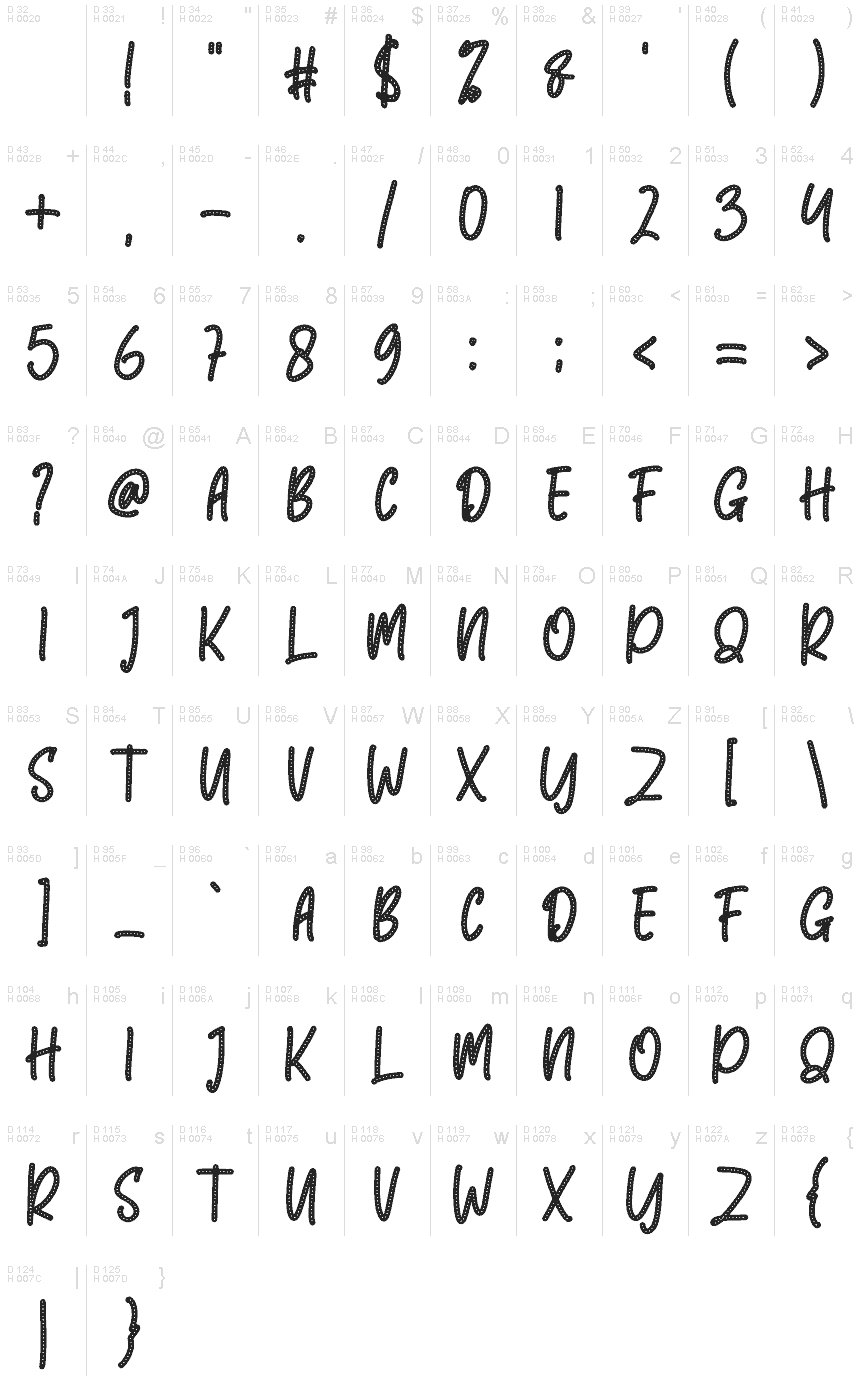
BORSE
Borse font presented by Skiiller Studio is a whimsical decorative display font with a lively appearance. The condensed letters each hold an intricate dotted pattern that makes them more special and eye-catching, with some of them also featuring fun dashes and rounded accents for an unusual look.
This retro-inspired font is suitable for creative designs that are as extraordinary as the typeface itself. Create fun page decorations with Borse, backdrop designs for unusual typography art, posters, branding and packaging designs for children’s products, book and magazine covers, video game titles, and elements used in online or printed hotel catalogs.